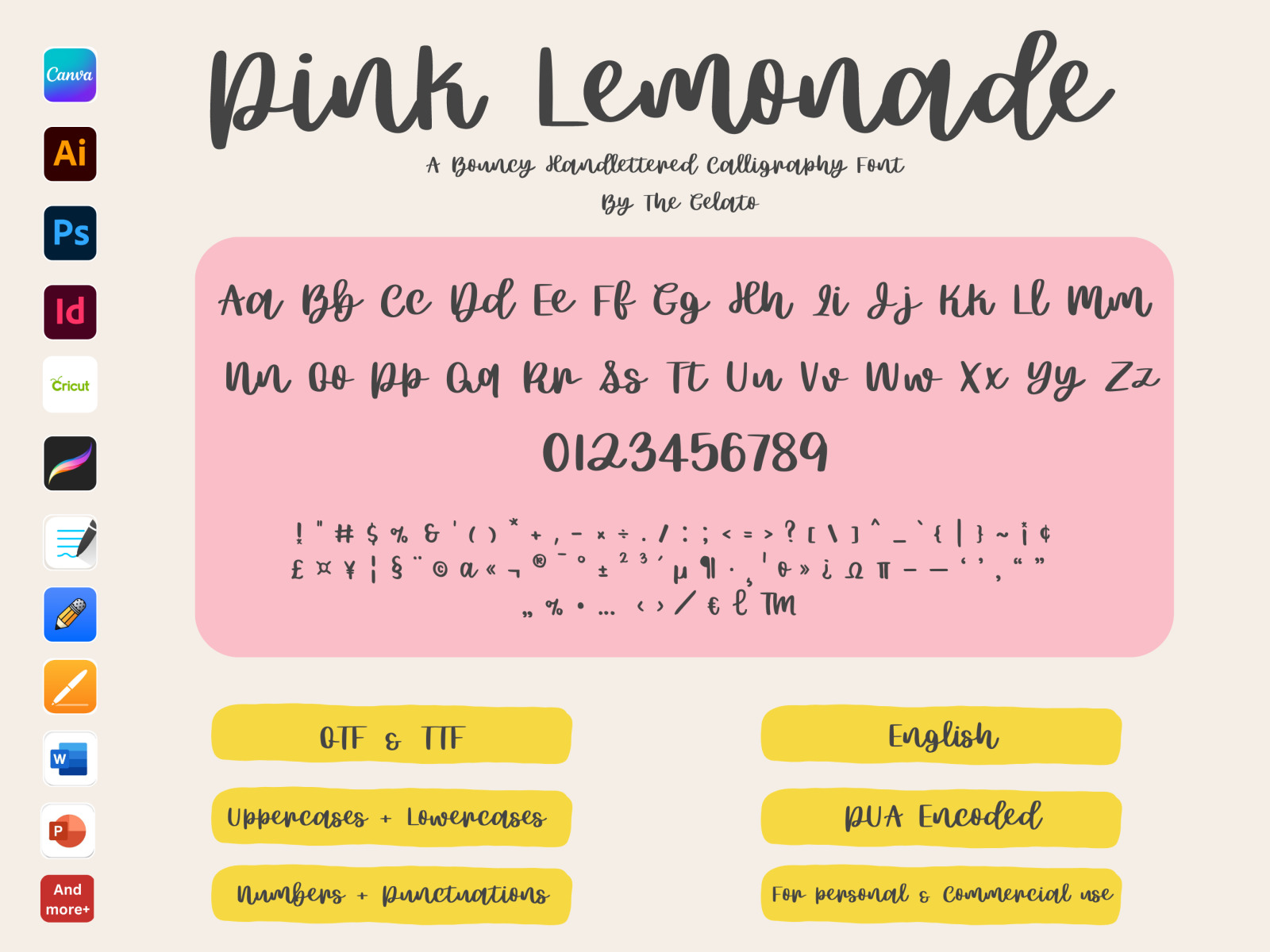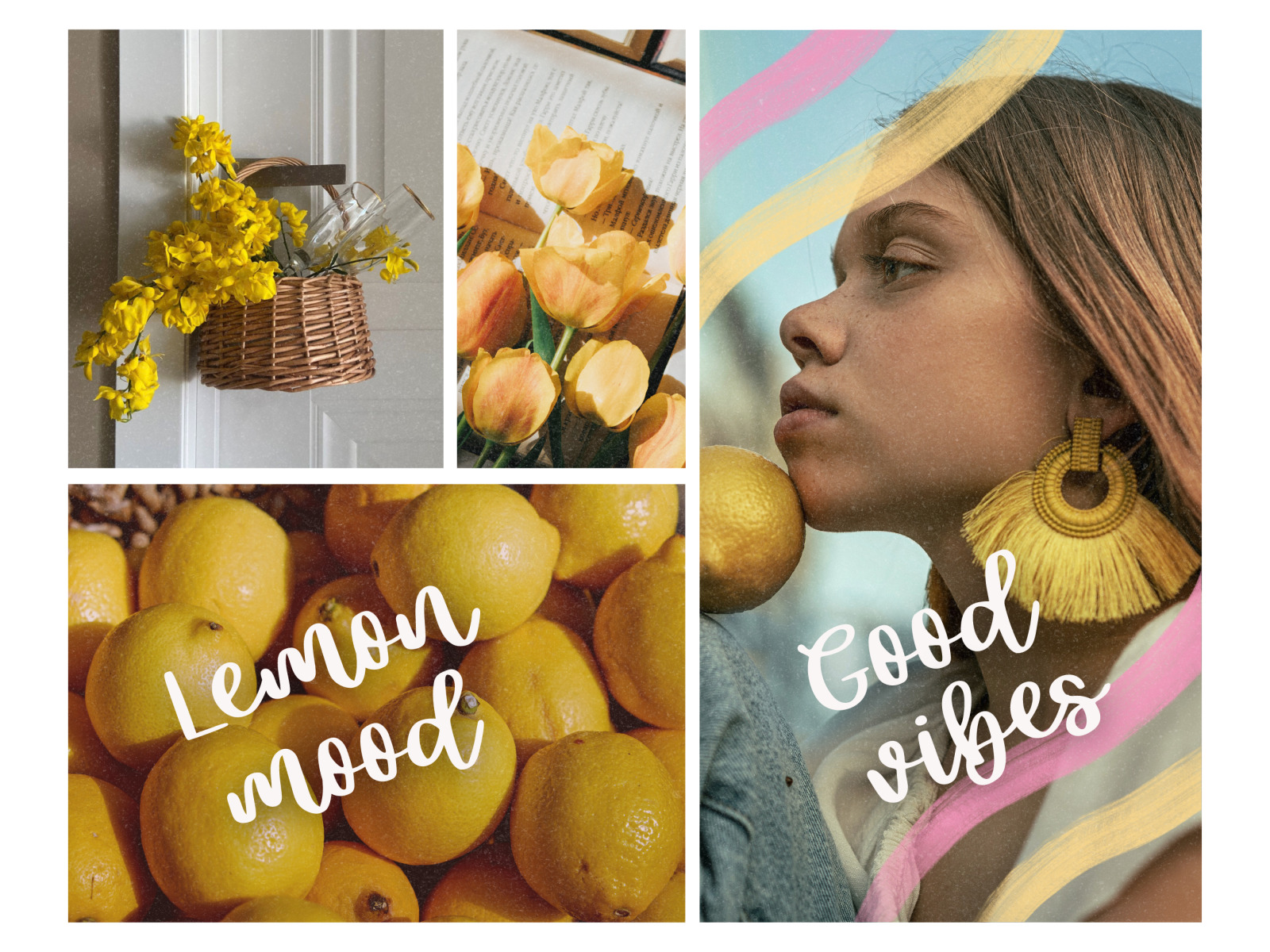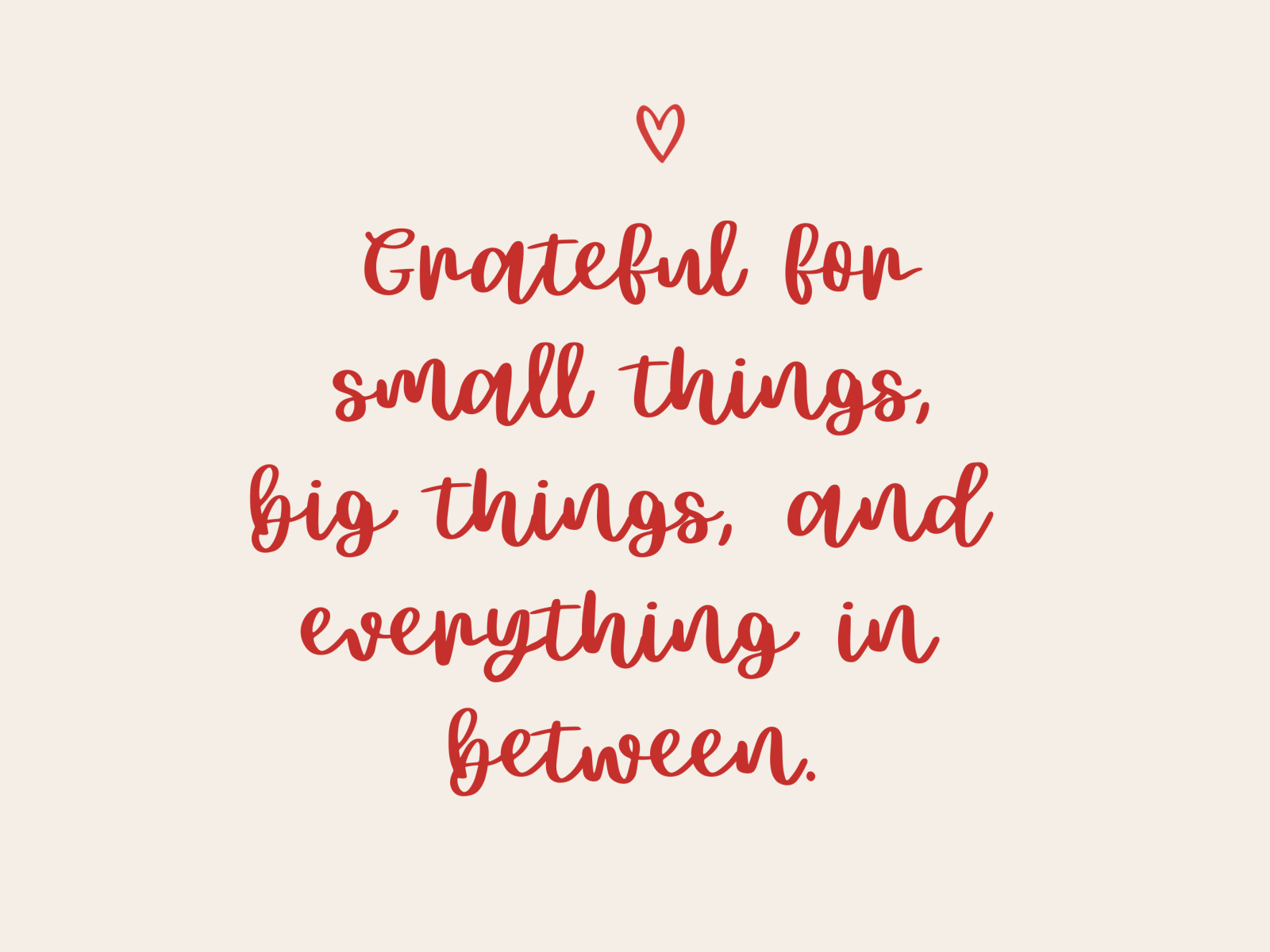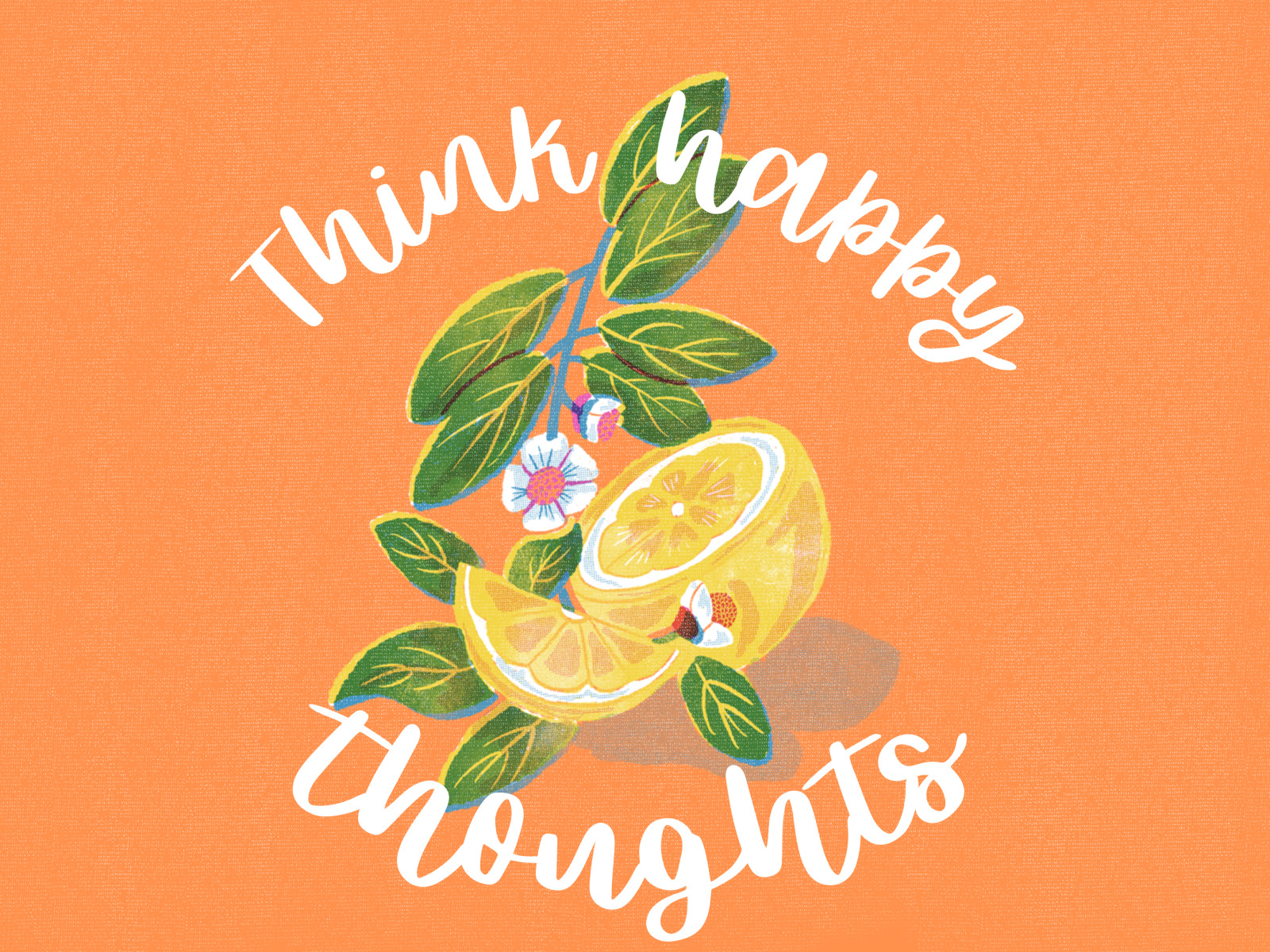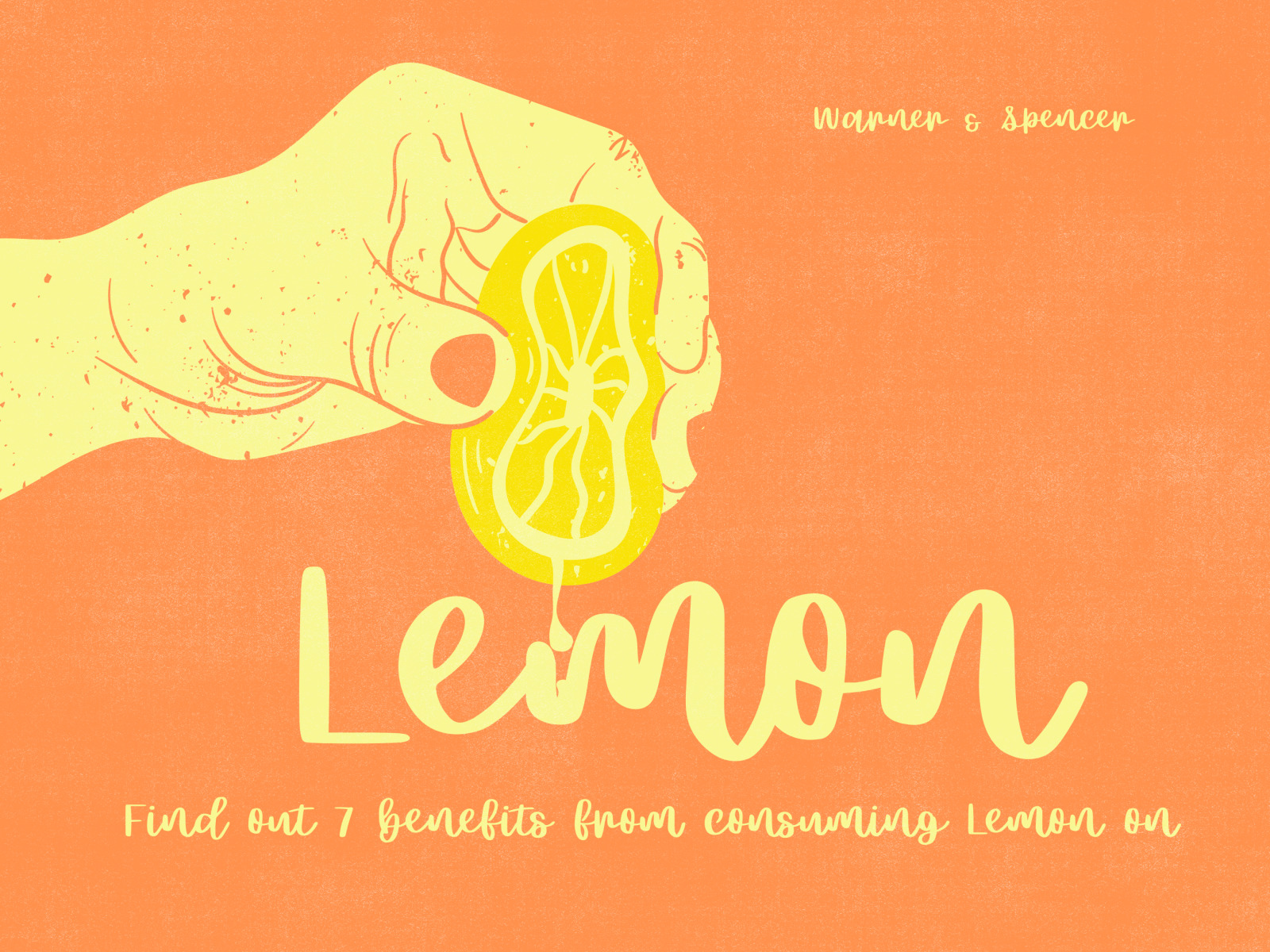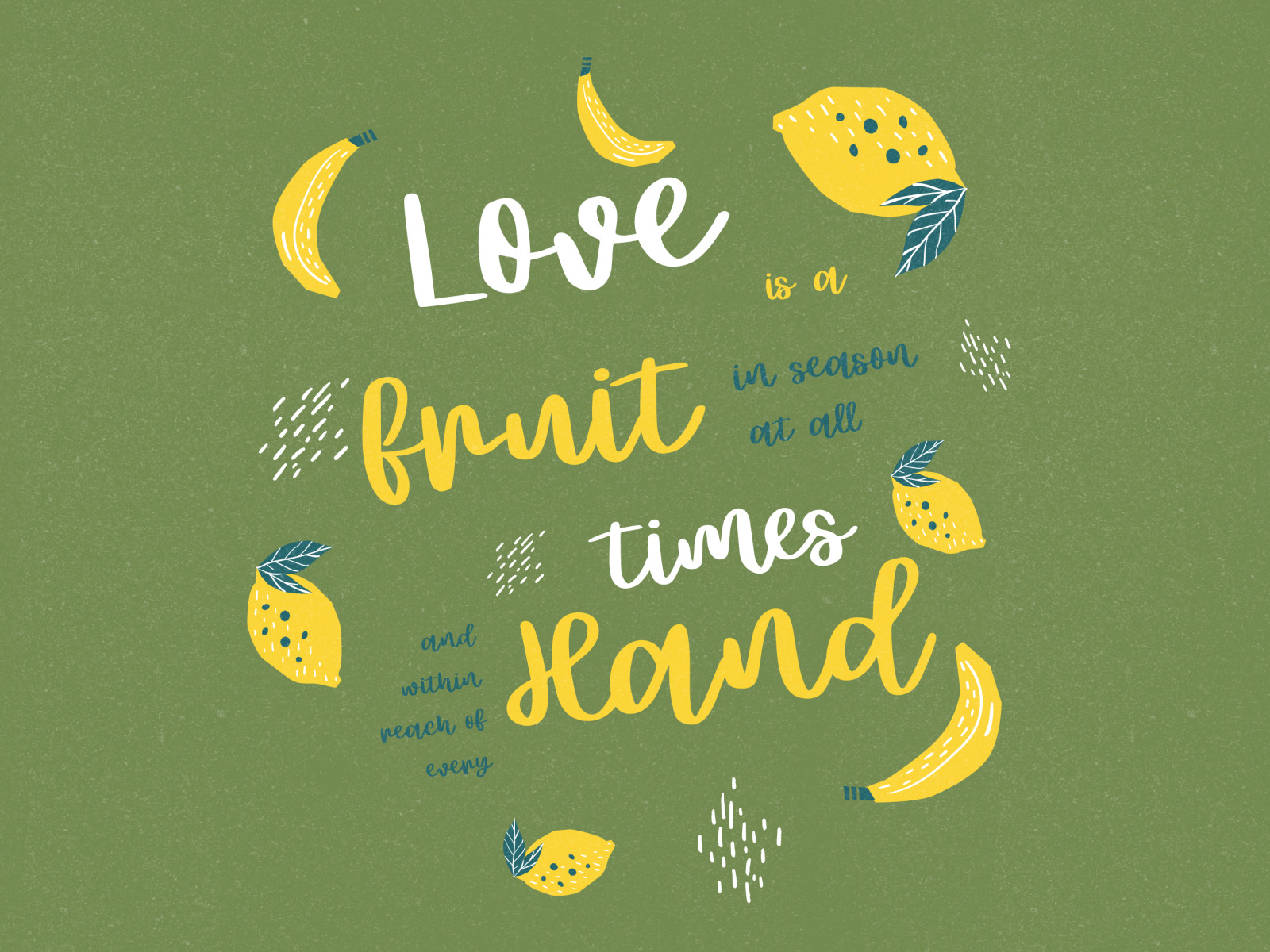
Pink Lemonade Calligraphy Font
Pink Lemonade font is a modern bouncy calligraphy font that can be used as a Calligraphy Embroidery font, Elegant calligraphy font, Wedding Calligraphy font, Handwritten Calligraphy.
Perfectly suitable for numerous use such as quotations, banners, logos, product packaging, titles, headers, menu lists, and invitation cards! Also, can work well on many occasions, such as baby showers, weddings, birthdays, thanksgiving, Christmas, Valentine's, etc.